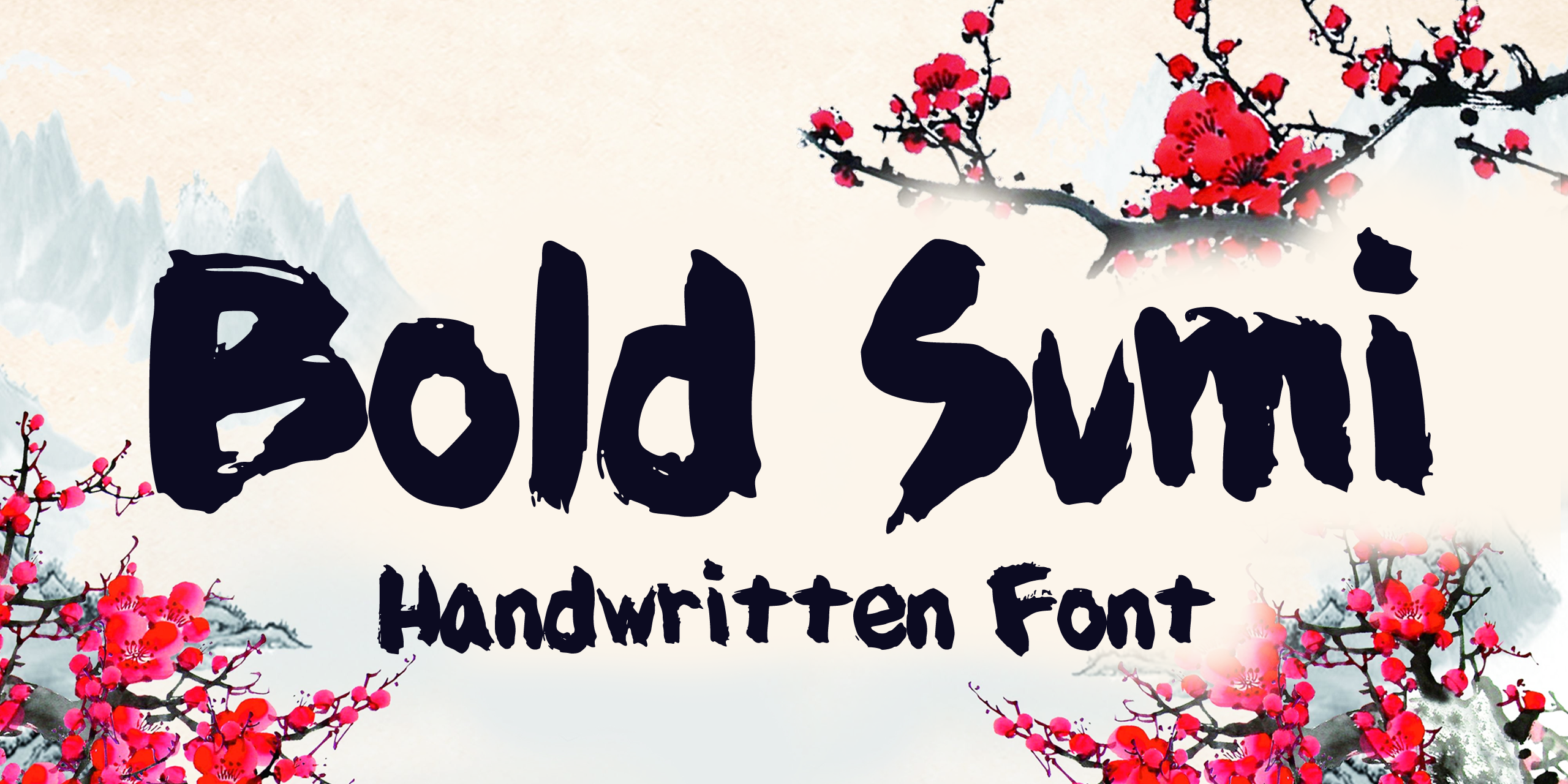
Bold Sumi Font is perfect for Japanese restaurant branding, martial arts dojo signage, Asian art gallery exhibitions, zen meditation center marketing, traditional calligraphy workshops, sushi bar logos, oriental spa branding, and authentic Japanese cultural events.
This font is exciting because it embodies the powerful essence of Japanese brush painting with bold artistic expression and zen sophistication. Bold Sumi Font features strong, brush-stroke letterforms with authentic ink texture that capture the spirit of traditional sumi-e painting, making it ideal for projects that require genuine Japanese character and artistic authenticity.
The Bold Sumi Font family includes regular, heavy, condensed, and brush variants, along with traditional alternates and calligraphic ligatures that enhance its Japanese character. Each weight maintains the font's artistic aesthetic while providing different levels of brush expression for various Asian and traditional design applications.
Whether you're developing authentic Japanese brands, creating compelling cultural materials, or designing traditional artistic campaigns, Bold Sumi Font Free Download delivers exceptional artistry and Japanese appeal. Its distinctive brush style makes it an excellent choice for designers seeking to add genuine Japanese tradition and artistic sophistication to their projects. The font's versatility extends from restaurant signage to cultural institution branding, ensuring consistent performance across all Japanese applications. With its masterfully crafted letterforms and brush proportions, this typeface provides professional results that honor Japanese traditions and establish powerful cultural presence with its unmistakable sumi-e character and bold artistic elegance.